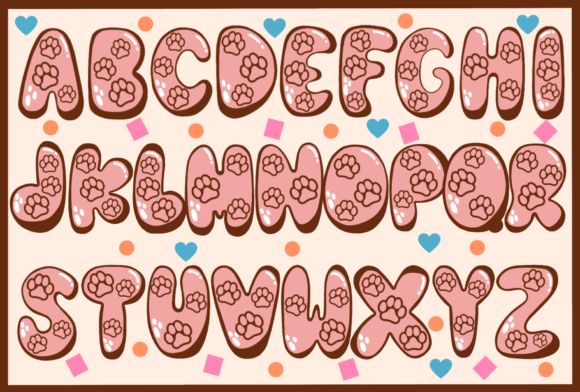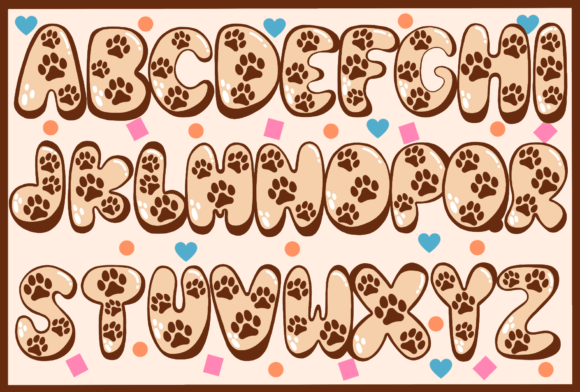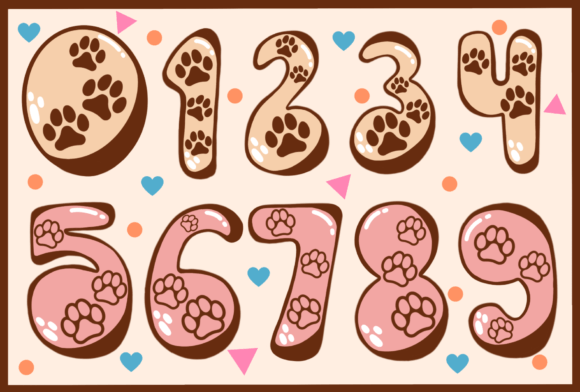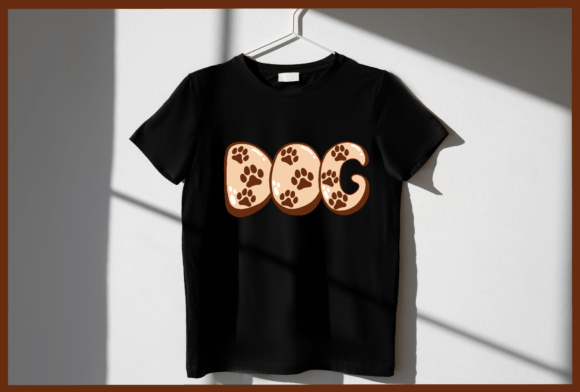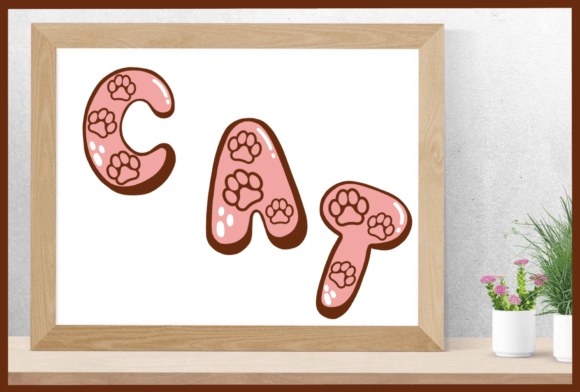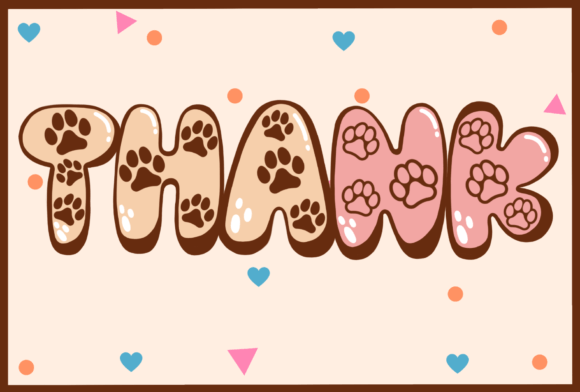
Introducing Cutie Pets Font: The Ultimate Decorative Font for Pet Lovers and Designers
Are you a designer, crafter, or pet lover looking for a unique and playful font to add a touch of whimsy to your projects? Look no further than Cutie Pets Font! This adorable decorative font features a fun paw pattern that’s sure to delight pet enthusiasts and anyone who loves cute designs. In this article, we’ll dive into the features and benefits of Cutie Pets Font, and explore how you can use it to take your designs to the next level.
What is Cutie Pets Font?
Cutie Pets Font is a one-of-a-kind decorative font that showcases a playful paw pattern. The font is designed to be eye-catching and fun, making it perfect for pet-themed projects, such as pet store logos, animal shelter posters, or pet grooming business cards. The font’s playful design is sure to capture the hearts of pet lovers and bring a smile to their faces.
Key Features of Cutie Pets Font
- Playful Paw Pattern: The font features a unique paw pattern that’s sure to delight pet enthusiasts.
- Colorful PNG Images: The font comes with colorful PNG images that you can use to add extra charm to your designs.
- Cute and Fun Design: The font’s design is playful and adorable, making it perfect for pet-themed projects.
Benefits of Using Cutie Pets Font
So why choose Cutie Pets Font for your next design project? Here are just a few benefits of using this adorable font:
- Adds a Touch of Whimsy: The font’s playful design adds a touch of whimsy to your designs, making them stand out from the crowd.
- Perfect for Pet-Themed Projects: The font is specifically designed for pet-themed projects, making it a great choice for designers who specialize in pet-related designs.
- Increases Engagement: The font’s cute and fun design is sure to capture the hearts of pet lovers, increasing engagement and interaction with your designs.
- Versatile: The font can be used for a variety of design projects, from logos and posters to business cards and social media graphics.
Tips and Tricks for Using Cutie Pets Font
Here are a few tips and tricks to help you get the most out of Cutie Pets Font:
- Experiment with Different Colors: The font’s colorful PNG images can be easily customized to match your brand’s colors or design scheme.
- Use it for Headings and Titles: The font’s playful design makes it perfect for headings and titles, adding a touch of whimsy to your designs.
- Combine with Other Fonts: Cutie Pets Font can be paired with other fonts to create a unique and visually appealing design.